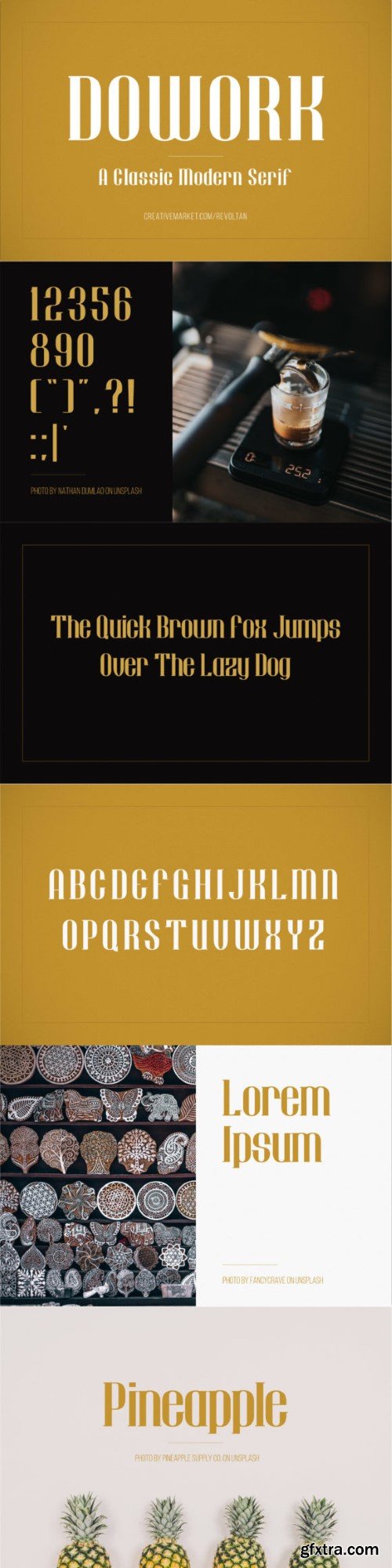
道工作字体
Dowork Font
Dowork Font is an elegant serif font, that features a very delicate and classy look. Not too thin and not too thick, balanced and varied, Dowork was designed to enhance the beauty of your projects.